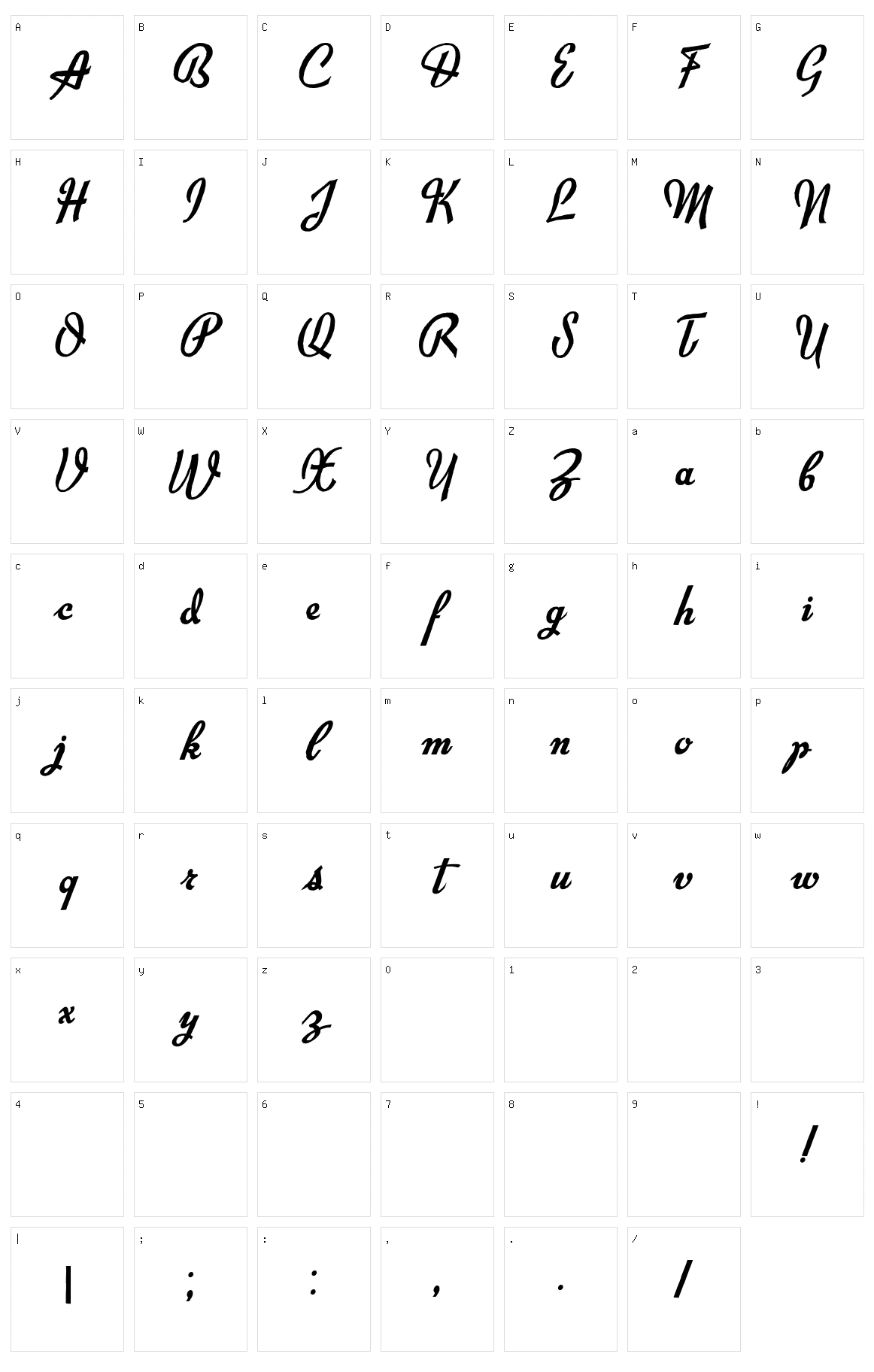
The free font Exiles is carefully designed by Intellecta Design, showcasing a thoughtful balance of creativity and usability and falls under the Script font style. When you download the ZIP file, it contains only 634.93 KB of font files, making it lightweight and quick to download. Please review the license details below to understand permitted usage and distribution rights. If license information is not available, we recommend using this font for personal projects only or contacting the author directly for commercial usage permissions.